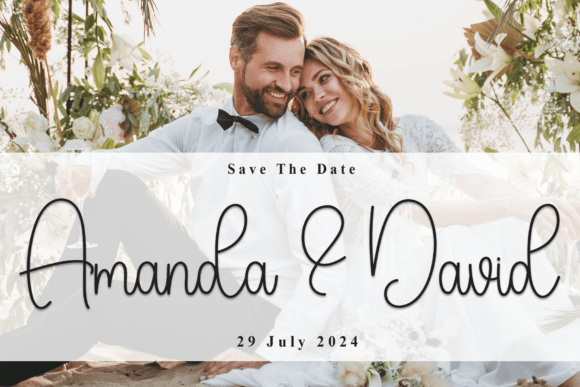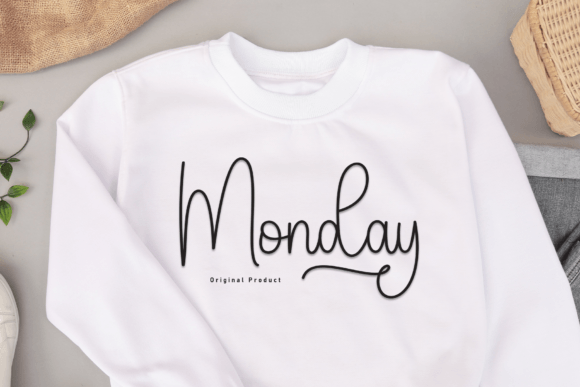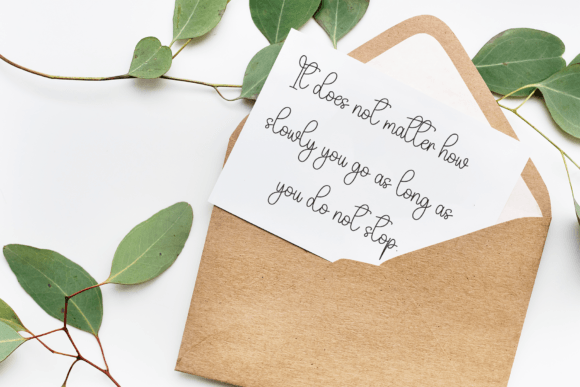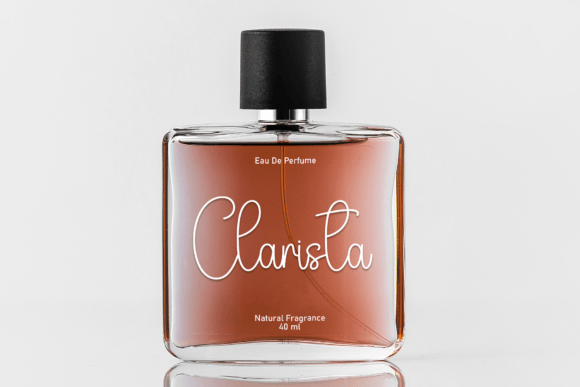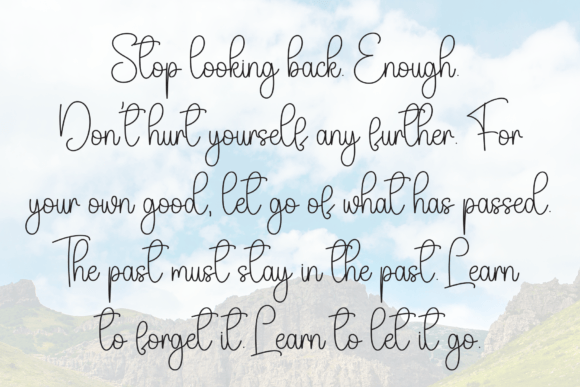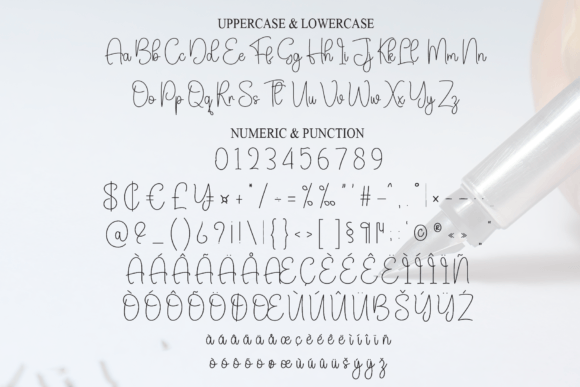
Unleash Your Creative Voice with the Autography Font
There’s nothing quite like the thrill of bringing a design concept to life. For many of us, it starts with a spark of inspiration – a fleeting glimpse of a beautiful script, a snippet of elegant typography, or a delicate flourish that sets our creative juices flowing. And when it comes to adding a touch of sophistication and personality to our designs, few fonts can match the charm of the Autography Font.
This stunning handwritten script font is the perfect choice for designers looking to add a personal and elegant touch to their projects. With its flowing, curved strokes and delicate details, the Autography Font brings warmth and creativity to any design. Whether you’re crafting an invitation, creating a logo, or developing a brand identity, this versatile font is sure to make a lasting impression.
As a valuable addition to any designer’s toolkit, the Autography Font offers endless possibilities for creative expression and self-expression. Its unique blend of elegance and charm makes it an ideal choice for those seeking to add a touch of sophistication and personality to their work.
Autography Font Key Features
- Unique Characteristics: Autography Font is designed to mimic handwritten text, with a distinctive and elegant feel that is perfect for creative and artistic projects.
- Script and Connection: The font features connected and disconnected letterforms, allowing for a natural flow and flexibility in text arrangement.
- Font Weight and Style: The font is available in a single weight, with a subtle variation in width and x-height to create a sense of movement and fluidity.
Autography Font Review
As a designer, I’ve had the chance to work with the Autography font, and I’m here to give you an honest review.
- Unique handwriting feel: Autography font has a distinct, cursive style that’s perfect for adding a personal touch to your designs.
- Wide range of styles: The font family comes with multiple weights, from light to bold, giving you a lot of flexibility in your design choices.
- Good legibility: Despite its cursive nature, Autography font is relatively easy to read, even at smaller font sizes.
- Limited language support: Autography font may not be suitable for languages that require complex script systems, such as Arabic or Chinese.
- Not ideal for small text: While Autography font is legible, it may not be the best choice for small text or body copy, where a more straightforward font would be more effective.
Overall, I think Autography font is a great addition to any designer’s toolkit. Its unique style and flexibility make it perfect for creative projects, and its good legibility ensures it’s easy to use in a variety of contexts. However, it may not be the best choice for every project, so be sure to consider its limitations before making a decision.
For a more authentic look, use a mix of bold and regular text to create a sense of movement and flow.
Autography Font is perfect for:
- Creating hand-written invitations and cards.
- Designing custom logos and branding materials.
- Adding a personal touch to social media posts and graphics.
Remember to experiment with different font sizes, colors, and styles to achieve the desired look and feel.